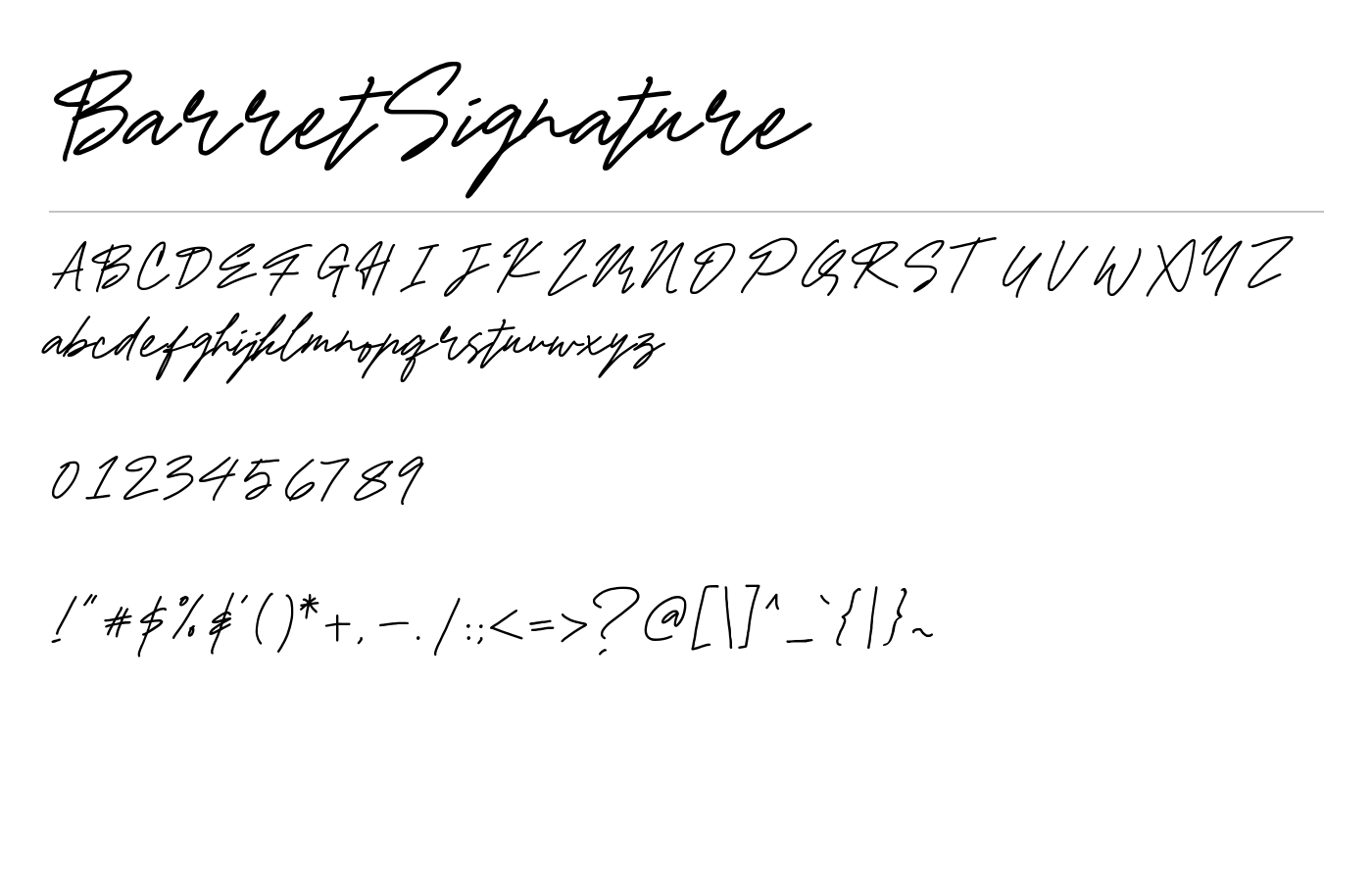
BarretSignature is a flowing handwritten script font that mimics elegant, personal handwriting with smooth, fluid strokes and a natural, casual feel. Its thin, slightly irregular lines and tall x-height make it perfect for adding a touch of authenticity and sophistication to branding, invitations, and social media graphics. This font works especially well where a stylish, approachable signature look is desired, lending warmth and character to designs.
BarretSignature Font